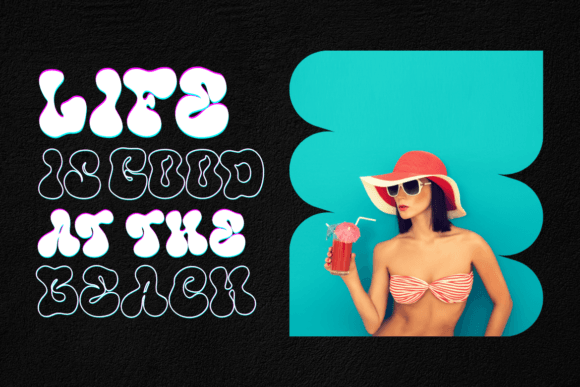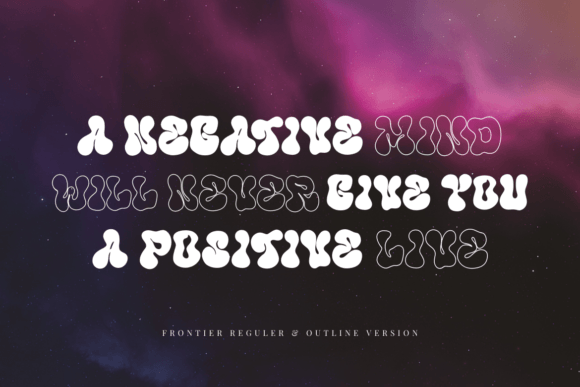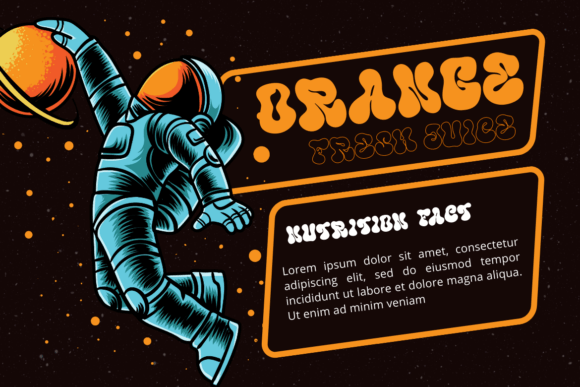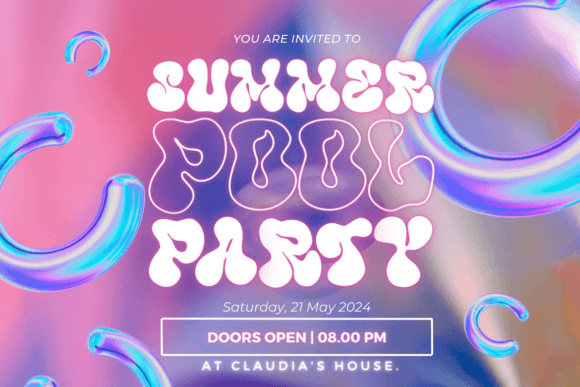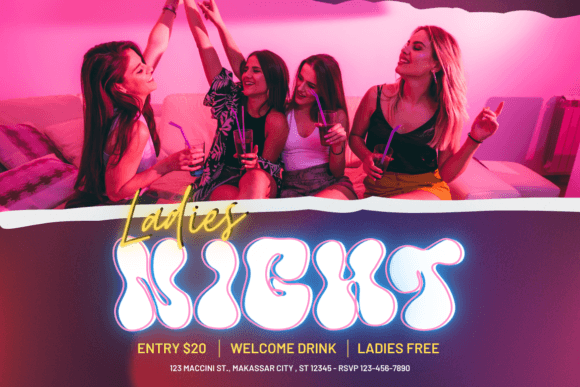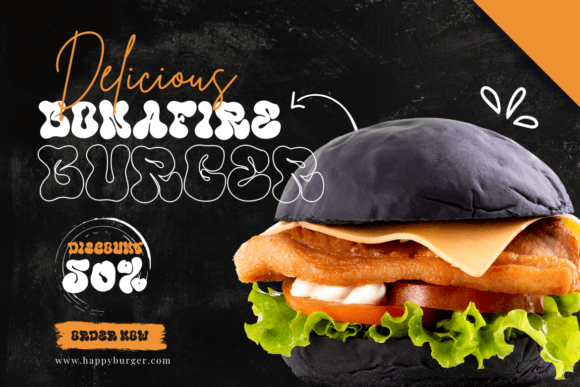
Introducing Frontier Font: The Ultimate Retro Display Font for Creative Projects
Are you a designer or crafter looking for a font that can add a touch of playfulness and style to your creative projects? Look no further than Frontier Font, a versatile and stylish retro display font that’s perfect for a wide range of applications. From retro-themed designs to summer-inspired projects, quotes, posters, and more, Frontier Font is the ideal choice for anyone looking to add a dash of nostalgia and fun to their work.
What is Frontier Font?
Frontier Font is a carefully crafted retro display font that’s designed to evoke the spirit of a bygone era. With its bold, playful, and stylish lettering, this font is sure to grab attention and add a touch of personality to any design project. Whether you’re working on a retro-themed design, a summer-inspired project, or simply looking for a font that can add some excitement to your work, Frontier Font is the perfect choice.
Key Features of Frontier Font
So, what makes Frontier Font so special? Here are just a few of its key features:
- Versatile: Frontier Font is a versatile font that can be used for a wide range of applications, from retro-themed designs to summer-inspired projects, quotes, posters, and more.
- Stylish: With its bold, playful, and stylish lettering, Frontier Font is sure to add a touch of personality to any design project.
- Playful: This font is perfect for designers and crafters who want to add a dash of fun and playfulness to their work.
- Retro-inspired: Frontier Font is a retro display font that’s designed to evoke the spirit of a bygone era.
Use Cases for Frontier Font
So, what can you use Frontier Font for? The possibilities are endless! Here are just a few ideas to get you started:
- Retro theme design: Create a retro-themed design that’s perfect for parties, events, or simply adding a touch of nostalgia to your work.
- Summer-inspired projects: Add a touch of summer fun to your designs with Frontier Font’s playful and stylish lettering.
- Quotes and posters: Use Frontier Font to create eye-catching quotes and posters that are sure to grab attention.
- Personal branding: Add a touch of personality to your personal brand with Frontier Font’s unique and stylish lettering.
- Promotional materials: Use Frontier Font to create promotional materials that are sure to stand out, such as flyers, brochures, and more.
- Logotype: Create a unique and memorable logotype with Frontier Font’s bold and playful lettering.
- Product packaging: Add a touch of style and personality to your product packaging with Frontier Font.
Why Choose Frontier Font?
So, why should you choose Frontier Font for your next design project? Here are just a few reasons:
- Unique and stylish: Frontier Font is a unique and stylish font that’s sure to add a touch of personality to any design project.
- Versatile: This font is versatile and can be used for a wide range of applications.
- High-quality: This font is high-quality and is designed to produce crisp, clear lettering at any size.
In conclusion, Frontier Font is a versatile, stylish, and playful retro display font that’s perfect for a wide range of applications. Whether you’re a designer or crafter looking to add a touch of personality to your work, or simply looking for a font that can add some excitement to your designs, Frontier Font is the ideal choice. With its bold, playful, and stylish lettering, this font is sure to grab attention and add a touch of nostalgia and fun to any design project.